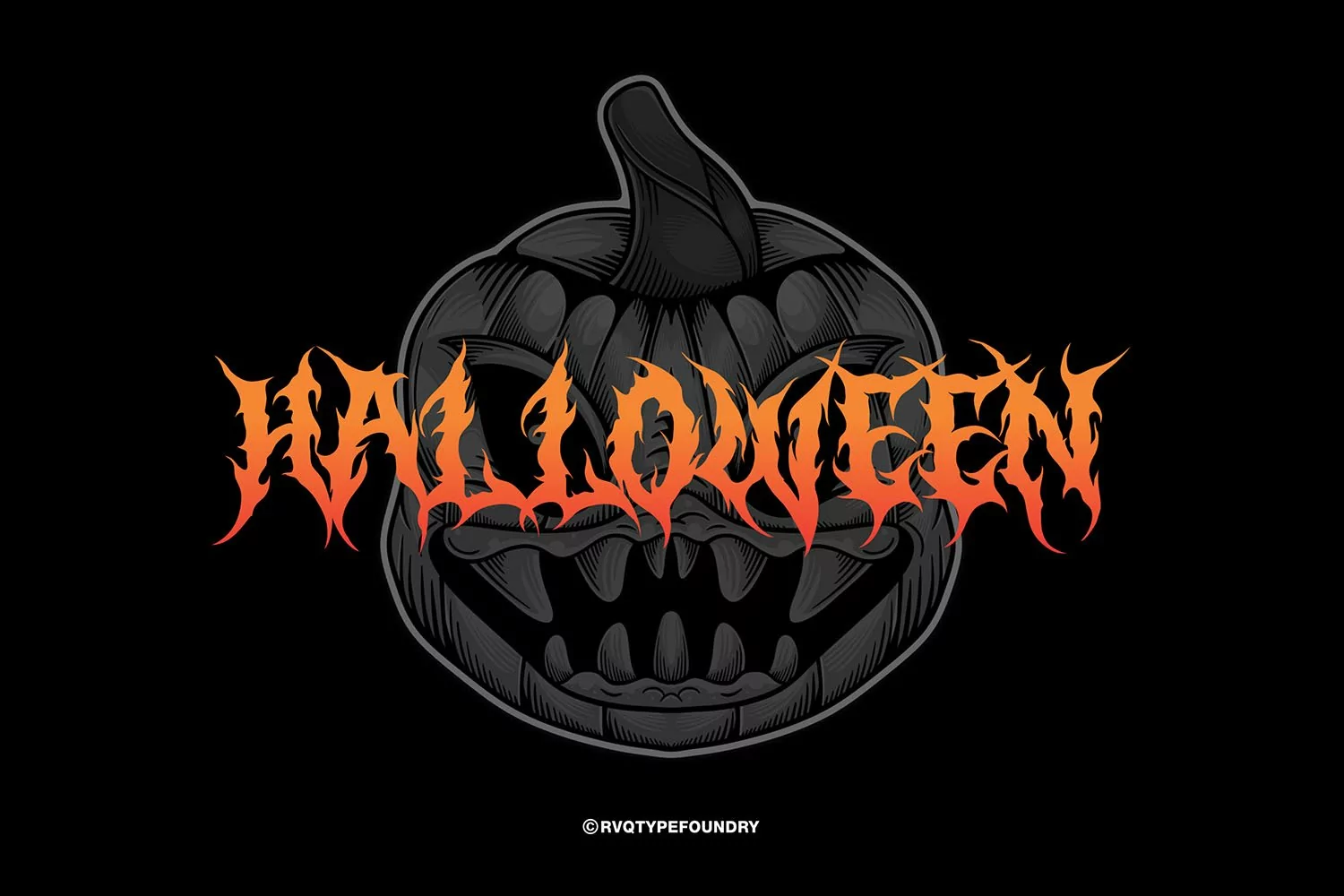
Break Gothic is the new font deathmetal and black metal from Rvq typefoundry ,was created font To create the beautiful combination, just mix your words with Ornament. Perfect for : for Band, Music, clothing, Branding, Logos, Greeting Cards, Stationery Design, Invitations, T-shirts, Apparel, Packaging designs, Posters, Typographic Design, and so much more